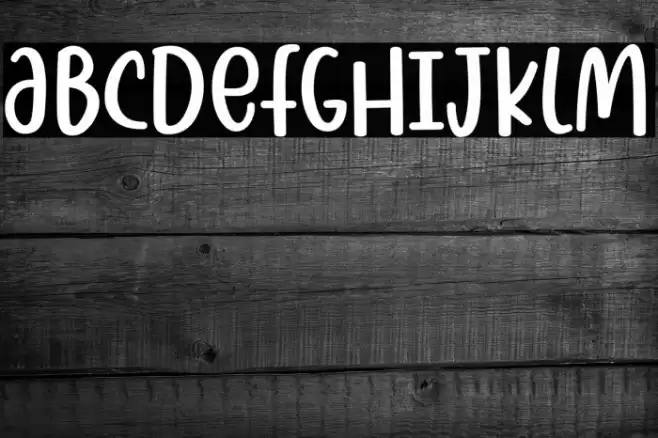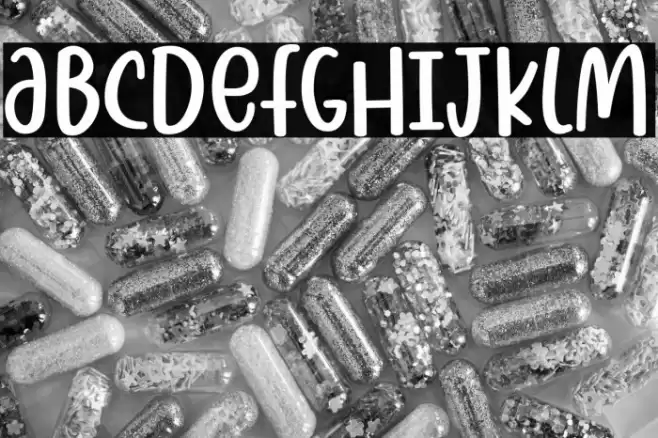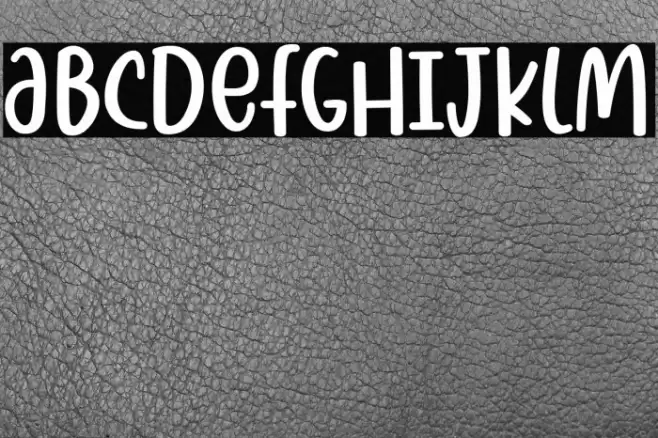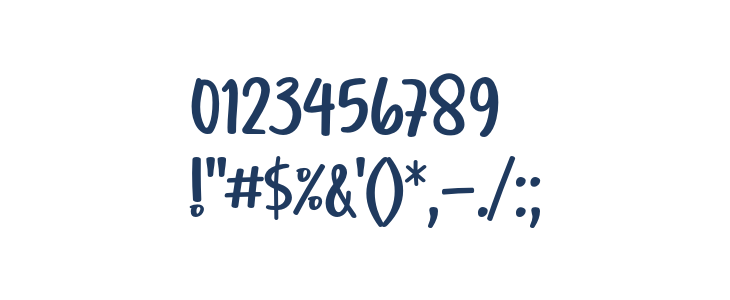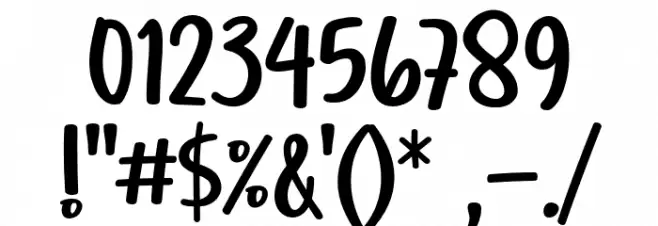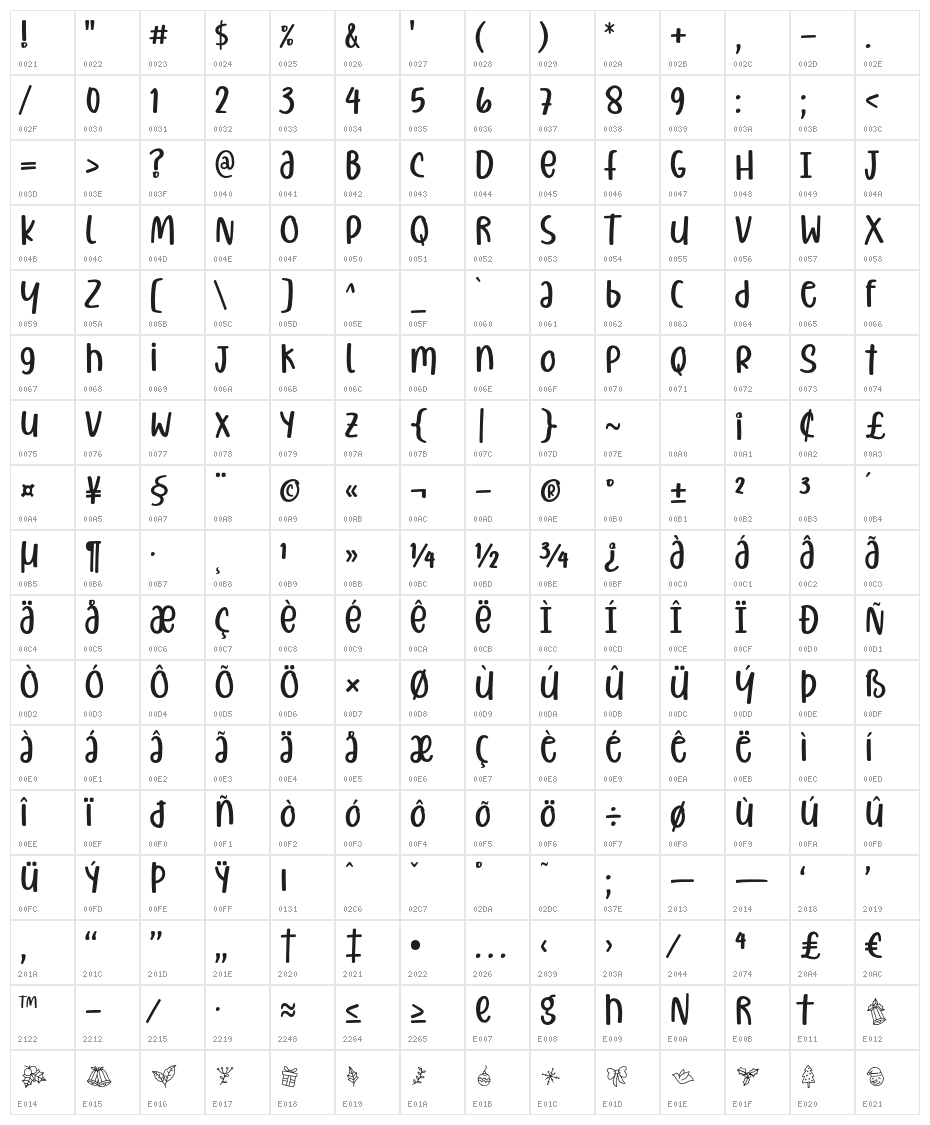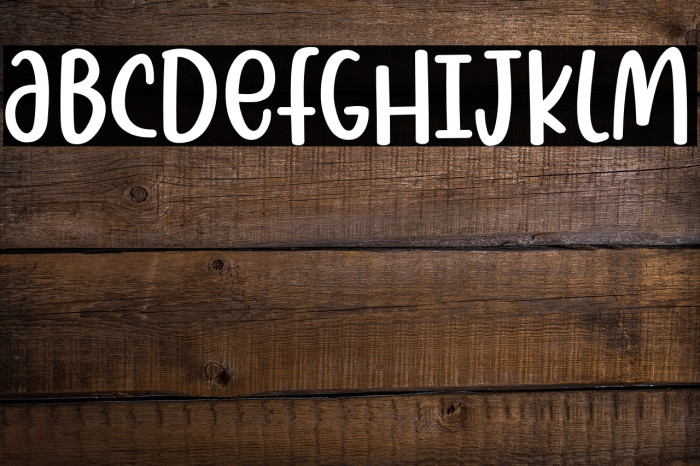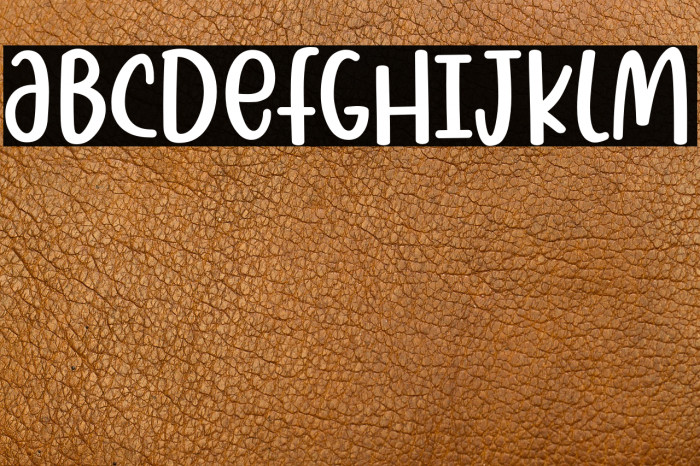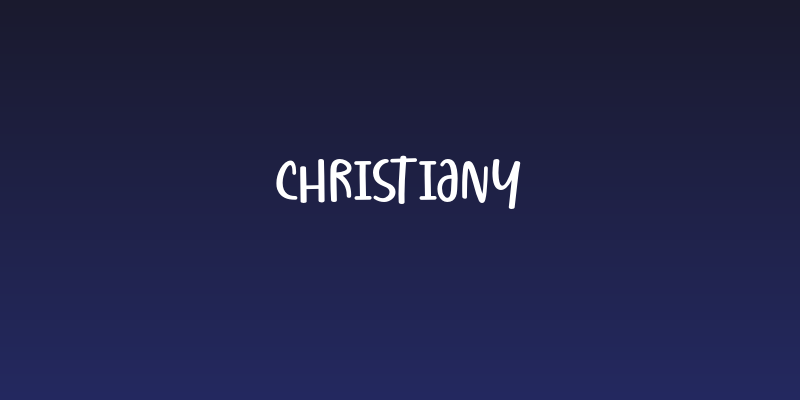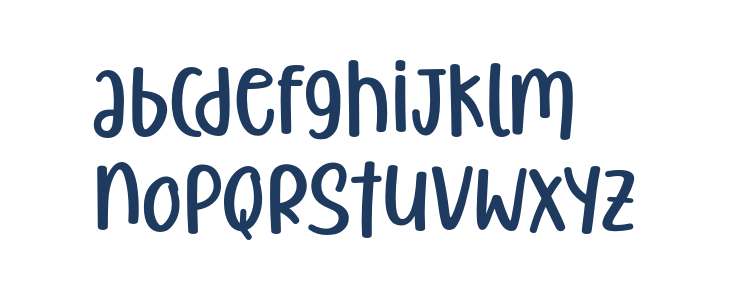
Christiany Font
Christiany Description
This font features a playful and casual handwritten style, characterized by its rounded and slightly irregular letterforms. The uppercase and lowercase letters maintain a consistent flow, with a slight slant that adds to its informal appearance. The numbers and special characters are designed to match the overall aesthetic, making it versatile for various uses. The strokes are bold and uniform, providing a strong presence on the page. This font is ideal for projects that require a friendly and approachable look, such as children's books, greeting cards, or casual branding.
A playful, handwritten font with bold, rounded strokes and a casual style from Cartoon fonts.
- Proposed Projects: Perfect for children's books, greeting cards, casual branding, and playful designs.
- Overall Style: Casual, Playful
- Use Case: Headlines, Logos, Informal Text